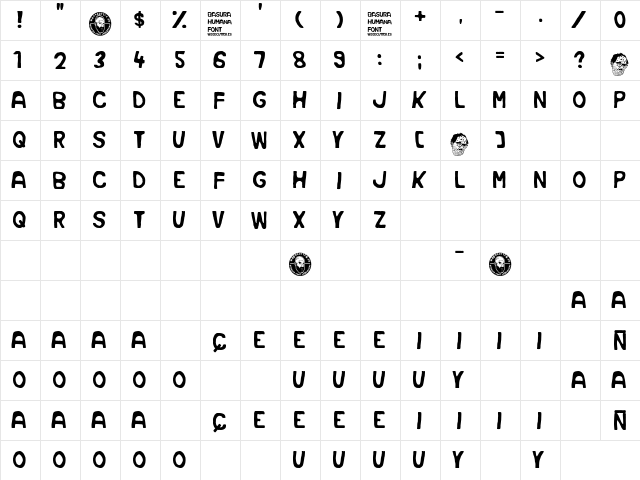
Basura Humana Regular
Design Context for Basura Humana Typeface
Basura Humana is a composed and adaptable typeface that performs quietly and consistently across a wide range of design contexts.